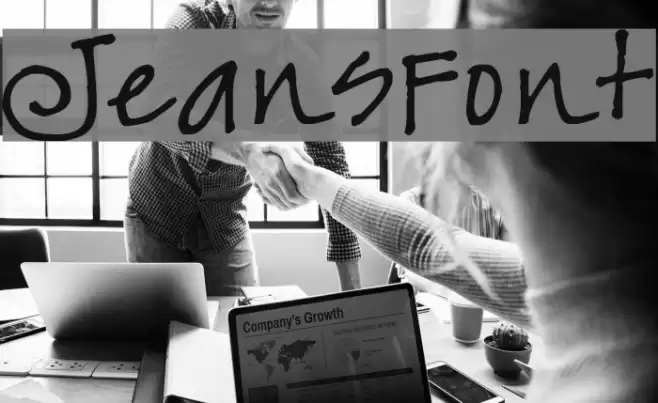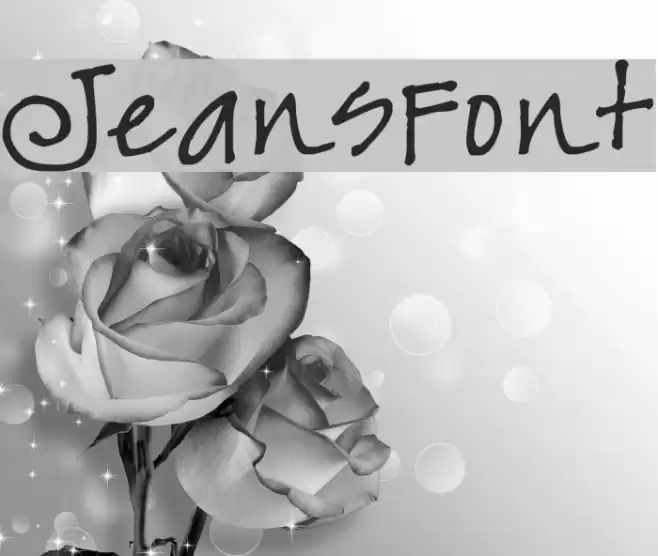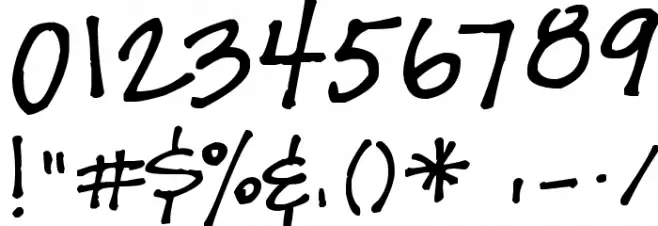
JeansFont Font
JeansFont Description
This font features a casual, handwritten style with a playful and informal appearance. The letters are slightly irregular, giving it an authentic, hand-drawn feel. The uppercase and lowercase characters are well-balanced, with a consistent flow that maintains readability. The numbers and special characters follow the same style, ensuring uniformity across all elements. This font's organic and friendly look makes it suitable for projects that require a personal touch.
A casual, handwritten font with a playful and informal style from Uncategorized fonts.
- Proposed Projects: Ideal for greeting cards, invitations, personal branding, and creative projects that require a friendly and approachable aesthetic.
- Overall Style: Casual
- Use Case: Logos, Invitations, Greeting Cards